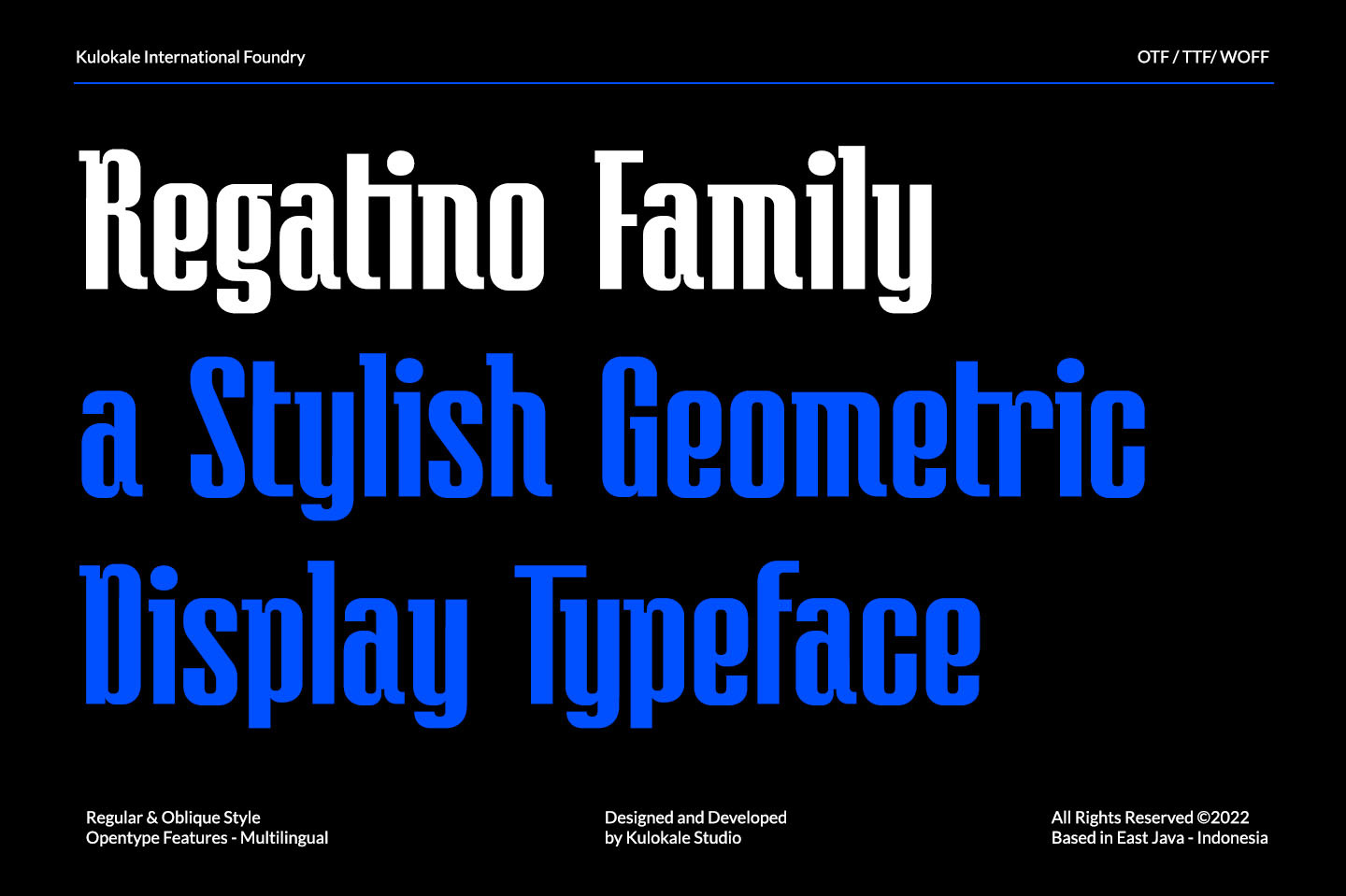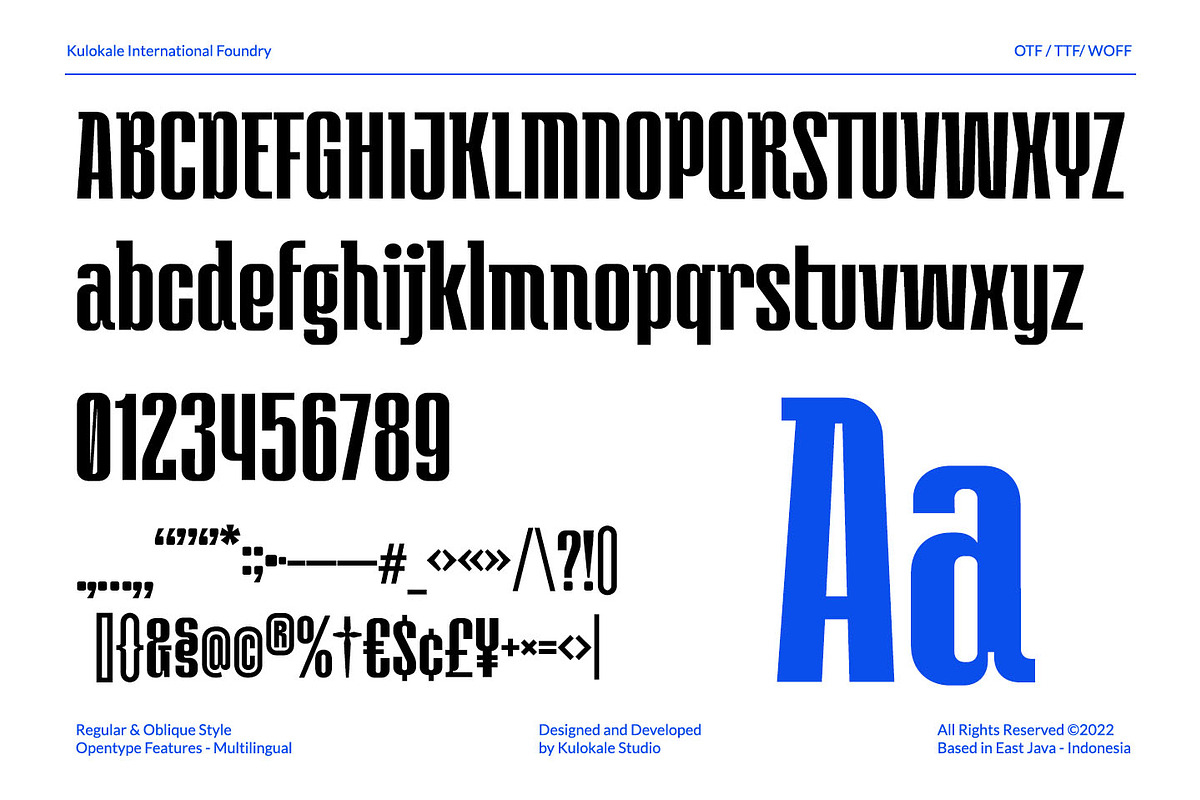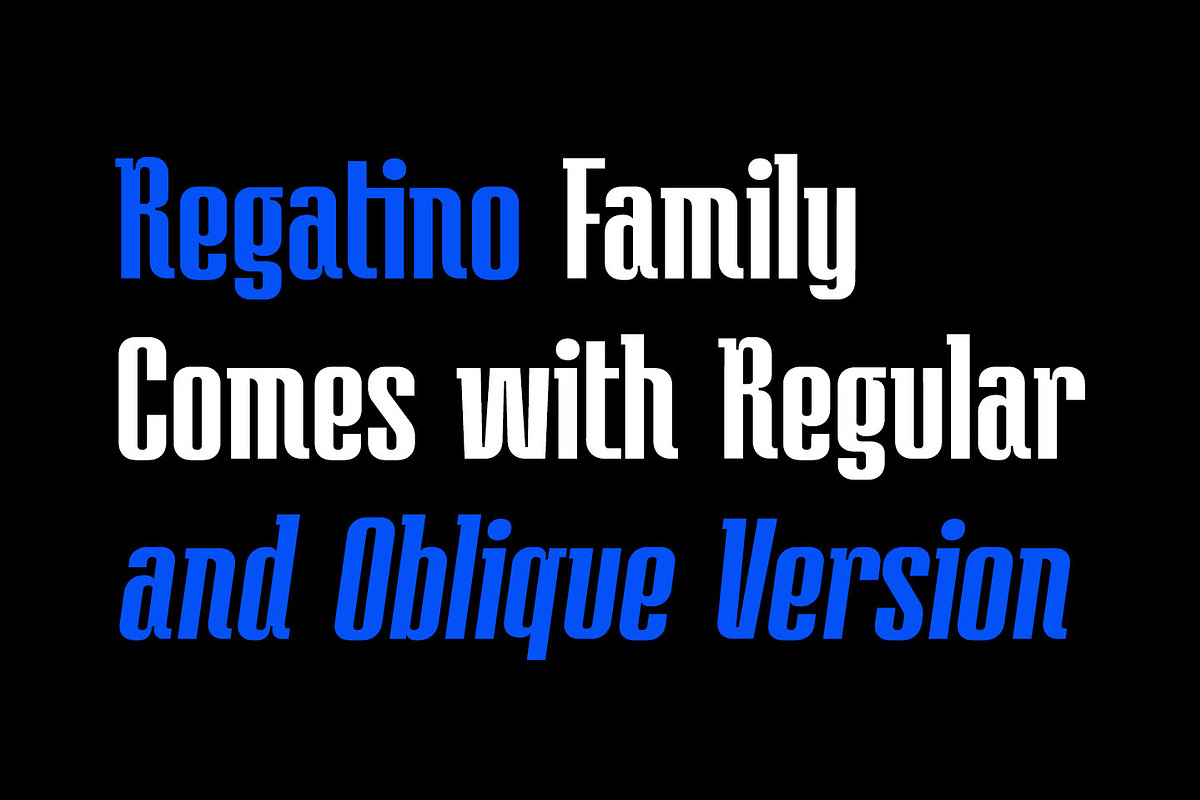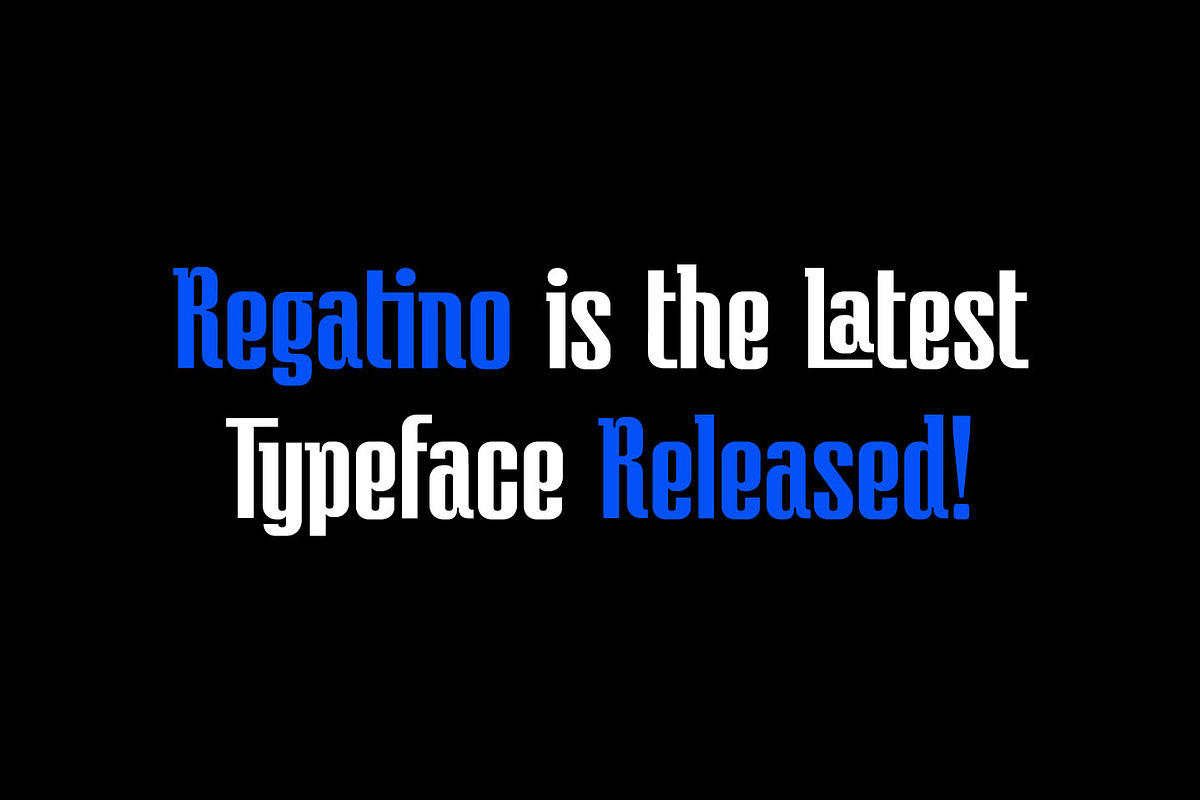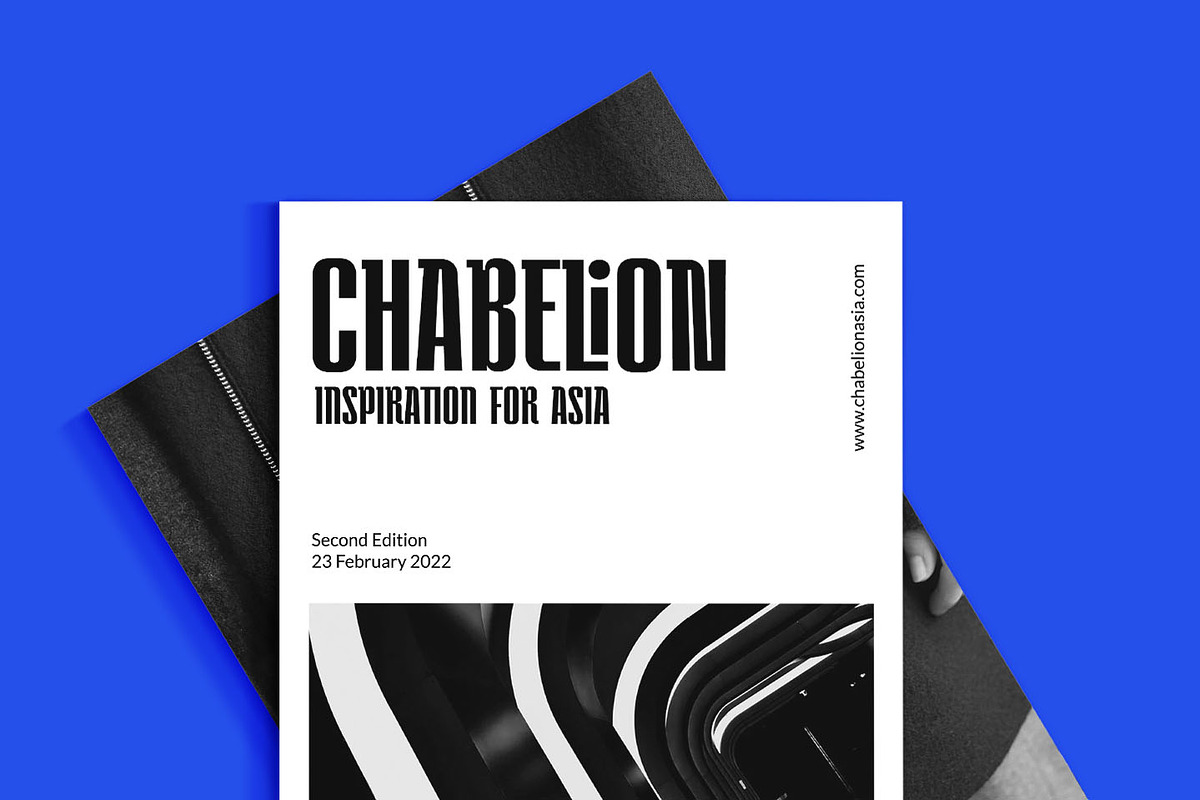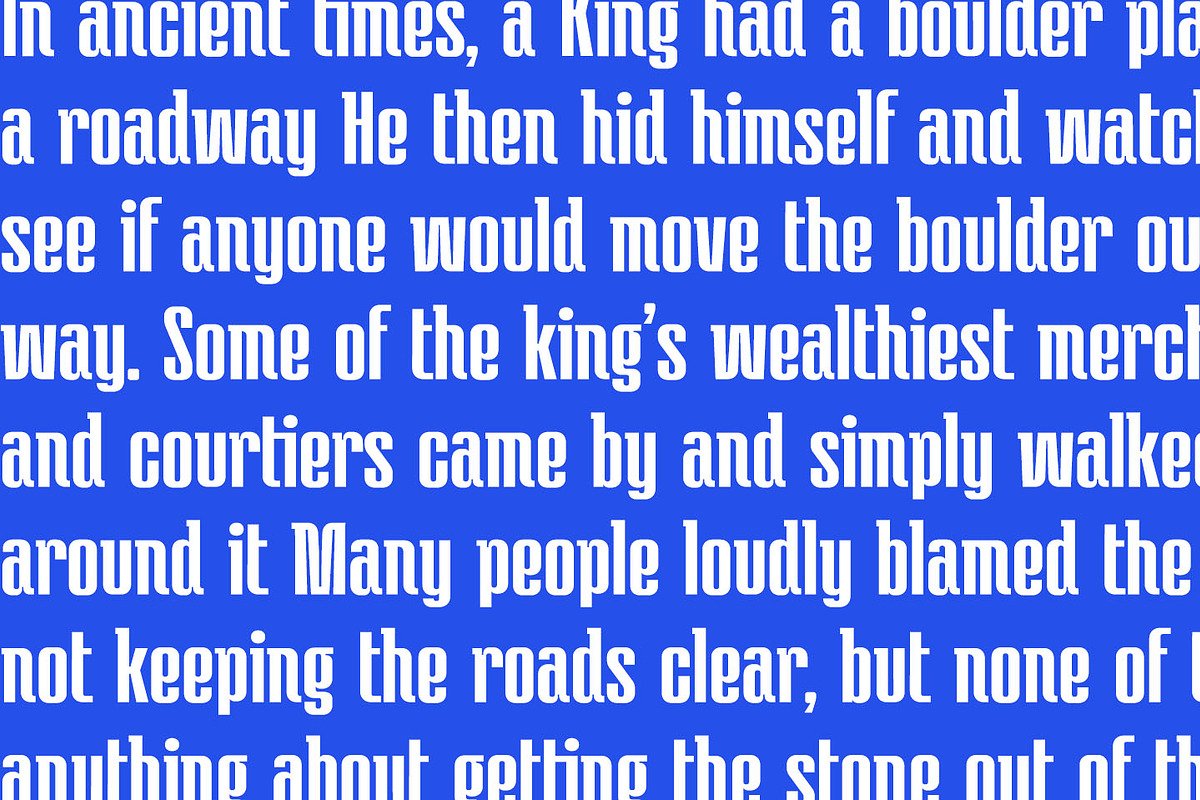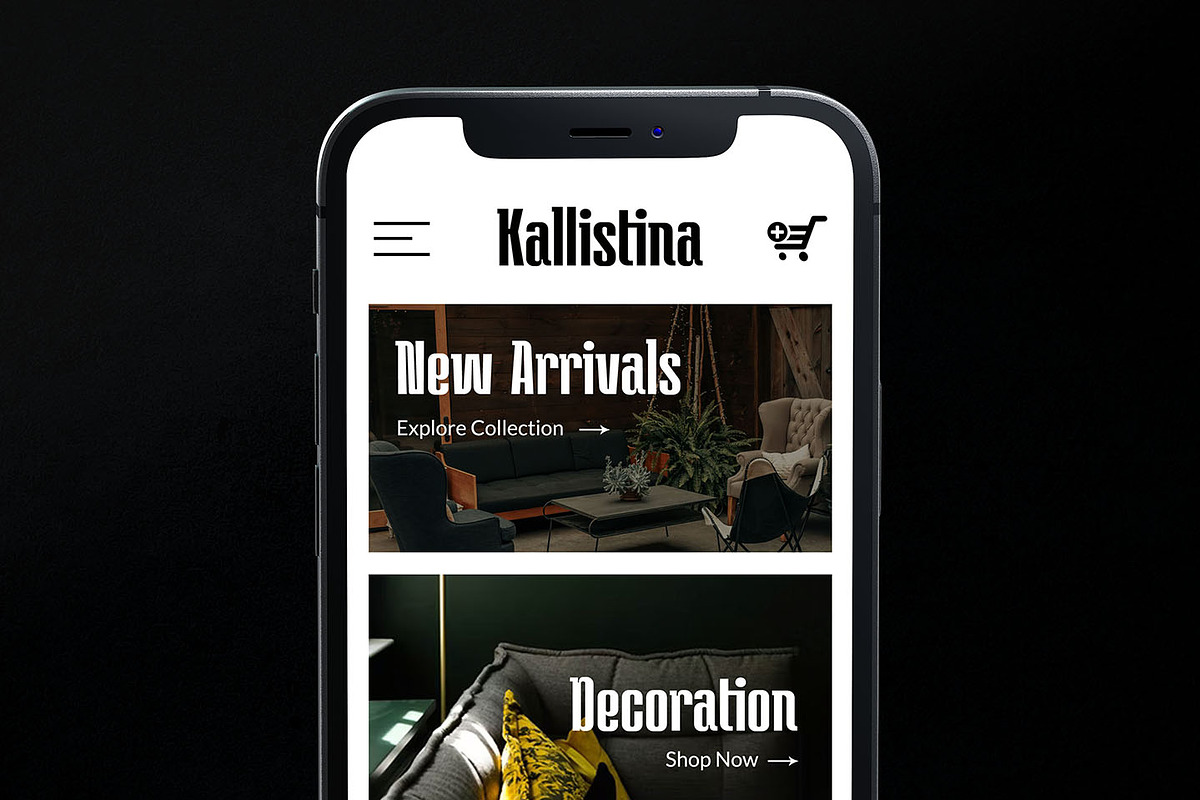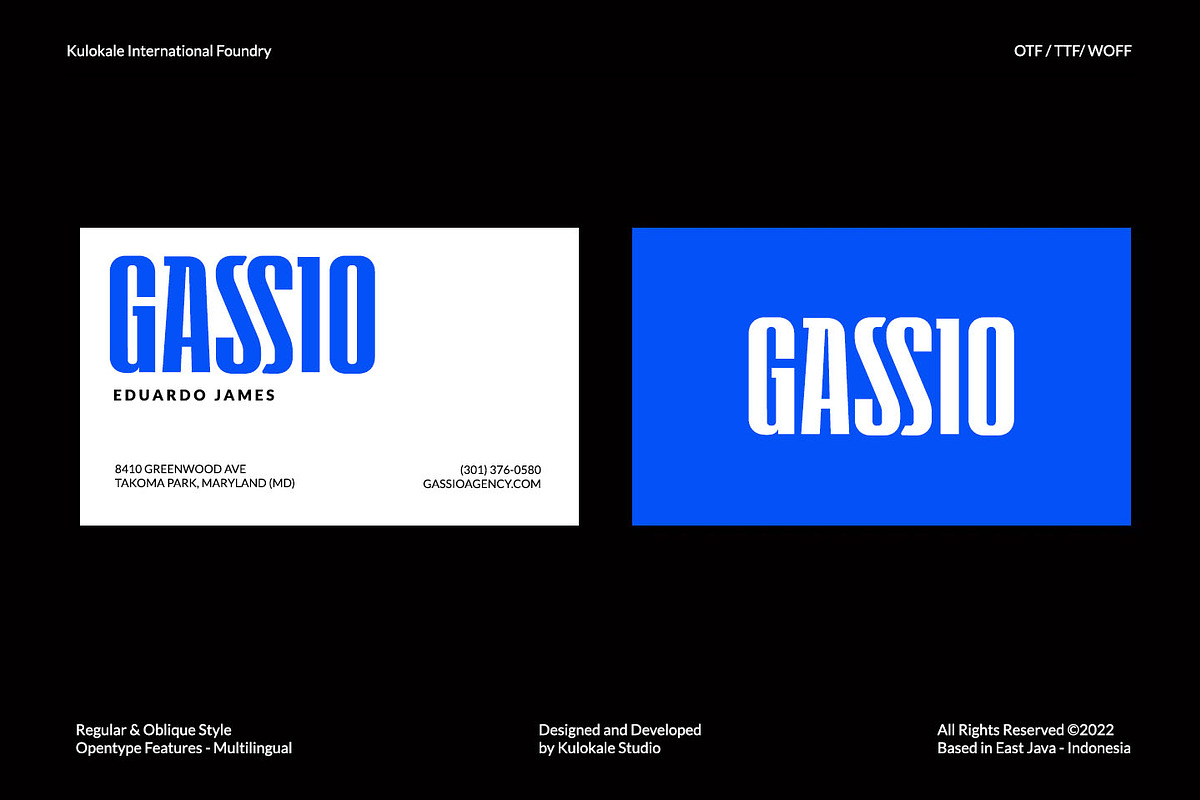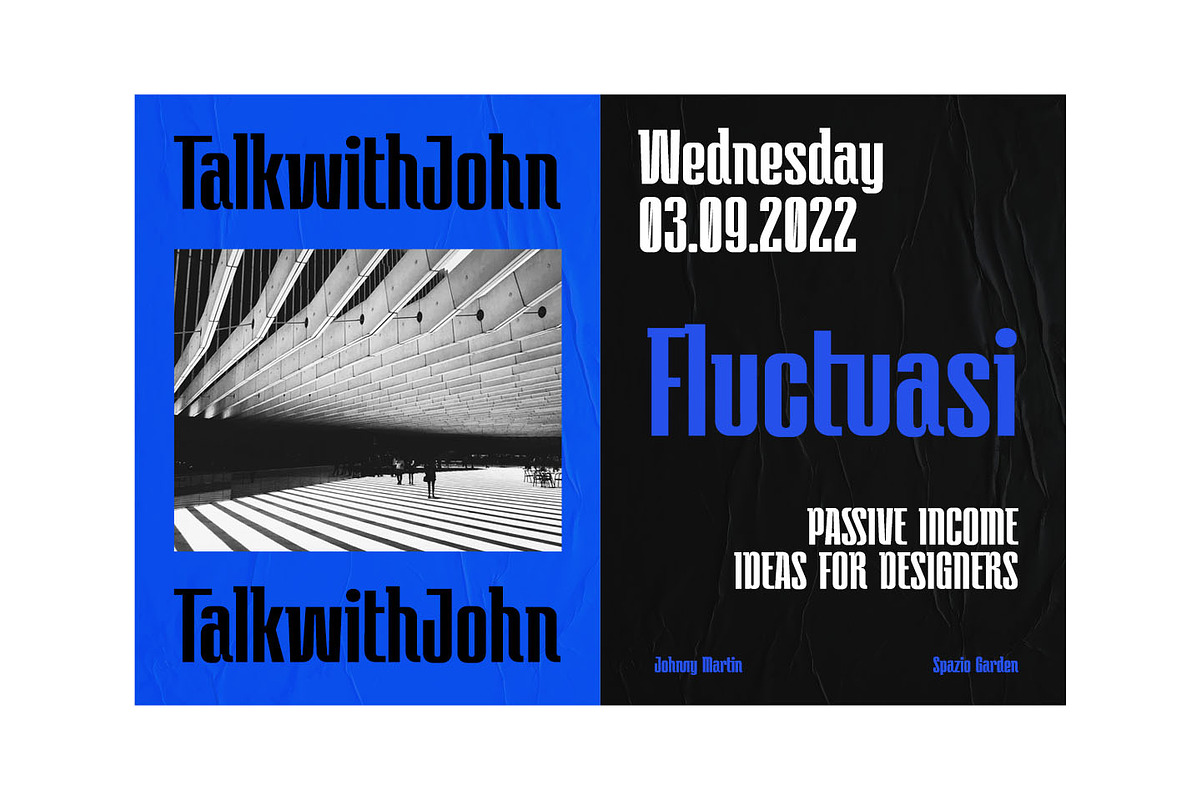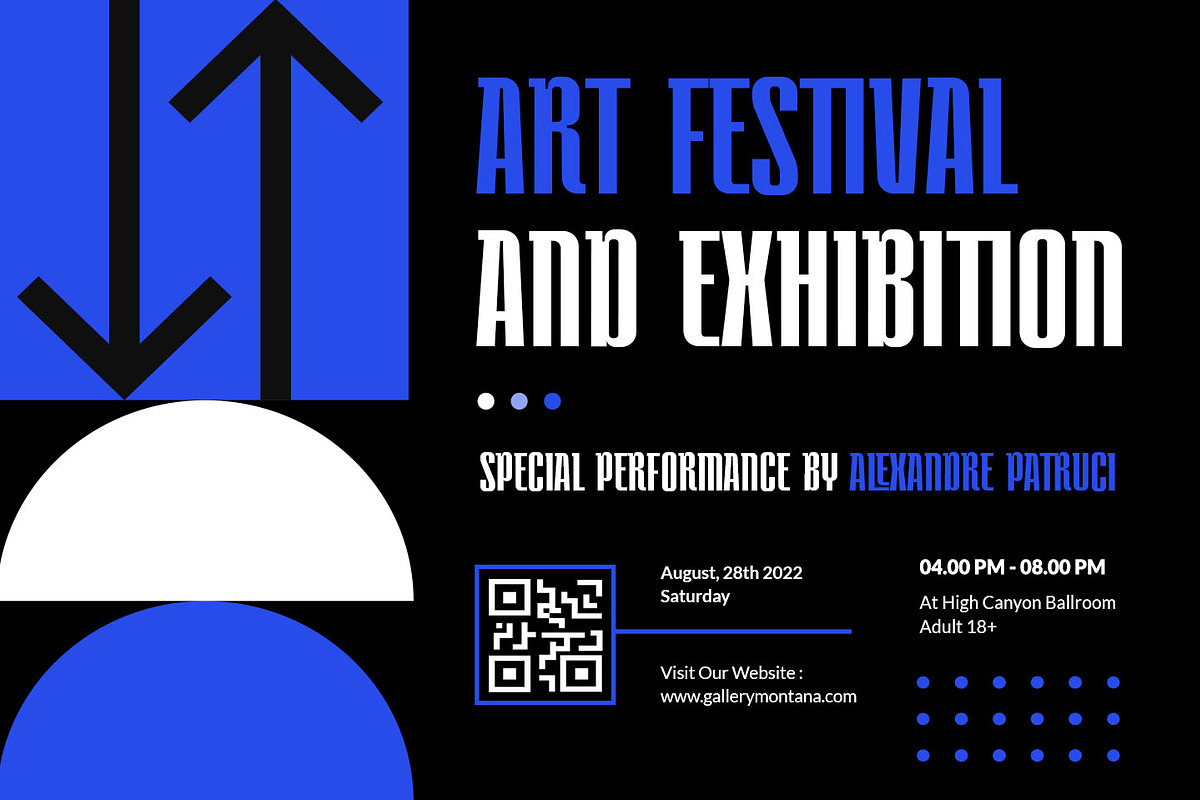
Regatino Geometric Display Font
Regatino is an geometric display font, and with a style that is very different from the others.
Regatino is well-suited for posters, social media, headlines, magazine titles, clothing, large print formats - and wherever you want to be seen. Inspired by the style of design that is currently popular, and this is the answer to all the needs of every idea that you will pour in this modern era.